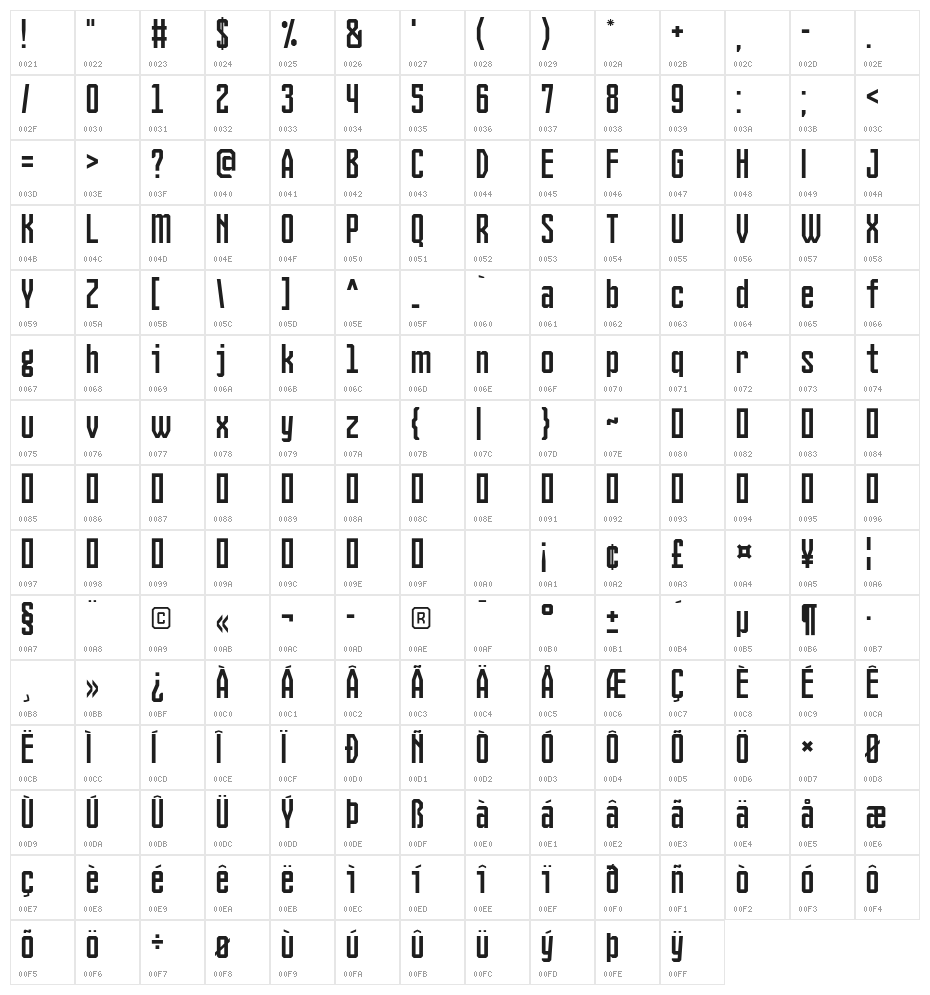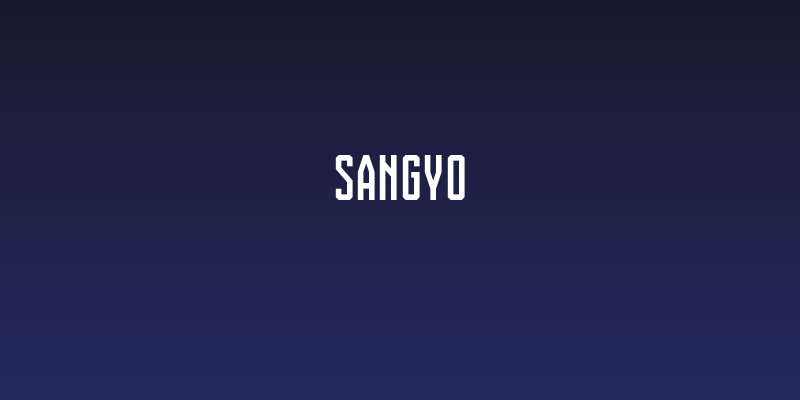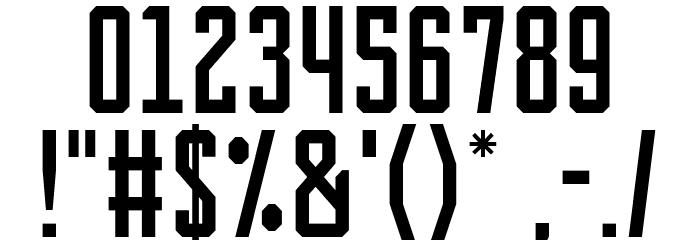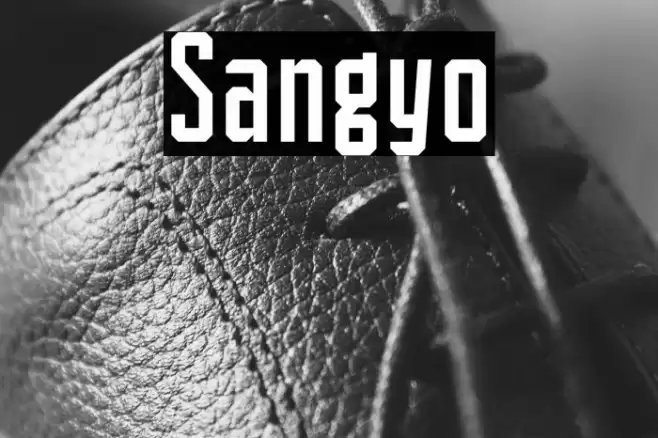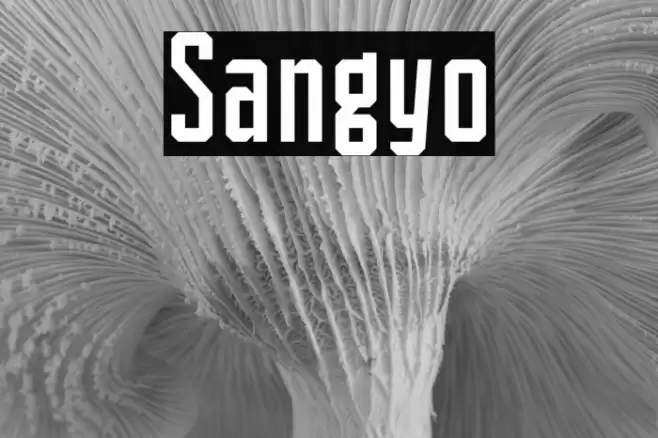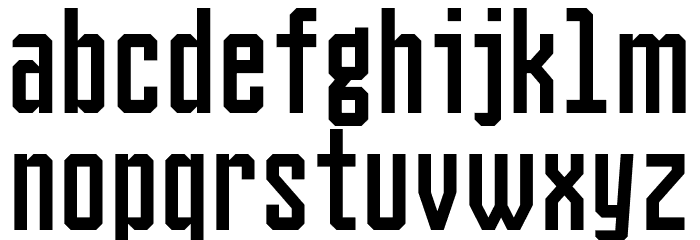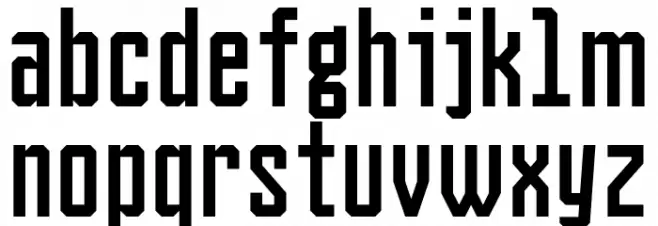
Sangyo Font
Sangyo Description
This font features a bold and geometric design with a strong industrial feel. The uppercase letters are tall and narrow, with sharp angles and a consistent stroke width that gives them a sturdy appearance. The lowercase letters maintain the geometric style, offering a cohesive look across both cases. Numbers and special characters follow the same design principles, ensuring uniformity throughout. The overall style is modern and slightly futuristic, making it suitable for projects that require a bold and impactful typeface.